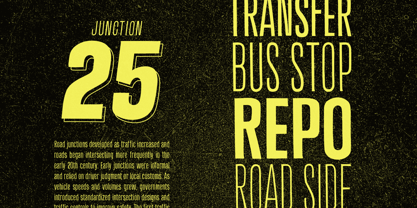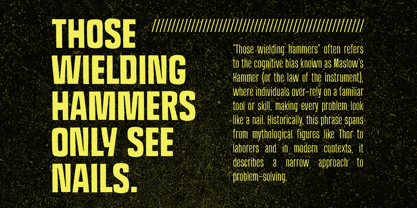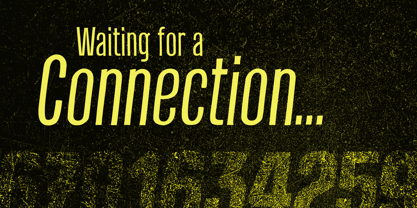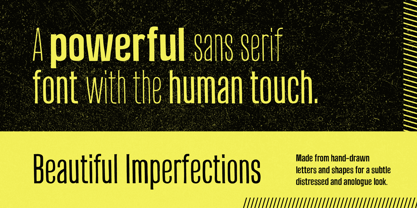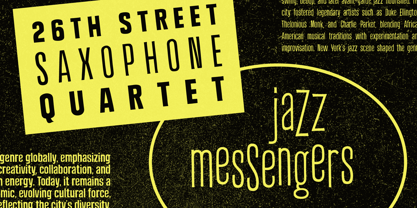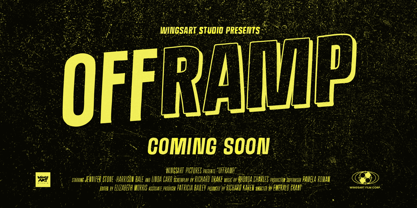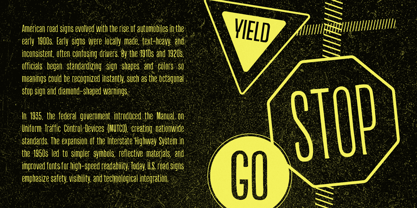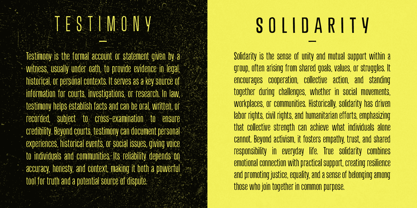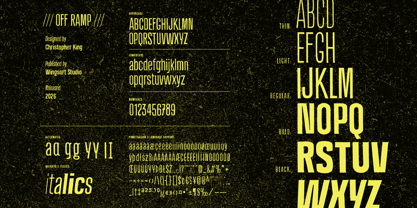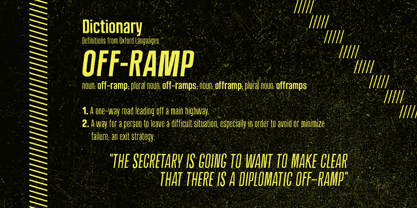
Off Ramp
La familia tipográfica Off Ramp fue diseñada por Christopher King y publicada por Wing's Art Studio. Off Ramp contiene 20 estilos y opciones de paquete familiar.
Off Ramp - An Industrial Sans-Serif Font Inspired by Roadside Lettering Off Ramp is a tall sans-serif font family in five weights, inspired by the workman-like lettering of the road. It references the everyday drive-by messaging we often take for granted, such as painted letters at bus stops, diversion signs warning of heavy traffic, and directions sprayed directly onto asphalt. With a subtly weathered look, this font family takes industrial legibility and adds a human touch, resulting in a uniquely confident, urban feel. Offering a range of weights from Thin to Black, Off Ramp is a versatile family that feels equally at home in headers and body text, with a tall framework is particularly well suited to compressed spaces. The family includes a complete uppercase and lowercase alphabet, numerals, punctuation, symbols, and multilingual support. All weights are also available in Italic and All Caps variants, providing expanded versatility and creative options. A selection of alternative stylistic characters is included, allowing you to customise your work even further. From editorials to film credits and impactful political posters, Off Ramp’s slightly rough edges (derived solely from hand-drawn elements) give your project a beautifully imperfect take on the traditional sans-serif, with a powerful yet approachable stance. When cold digital precision can’t connect with your audience, take Off Ramp for a spin.
Diseñadores: Christopher King
Christopher King (aka Wingsart Studio) is a Graphic Designer specialising in hand-drawn lettering for film and television titles. From blockbuster films to indie press, Wingsart Studio fonts have appeared on screens big and small around the globe. His work has been used by companies including Disney, Marvel, Apple, Netflix and Paramount Studios.The Wingsart Studio philosophy is to embrace the imperfections inherent with real pens, pencils, paper and brush. In counter-balance to an AI driven age, these fonts remain refreshingly analogue and proud of their human touch. Before a single letter turns into a digital product, countless hours are spent researching and sketching out ideas in pursuit of those perfect lines and shapes.